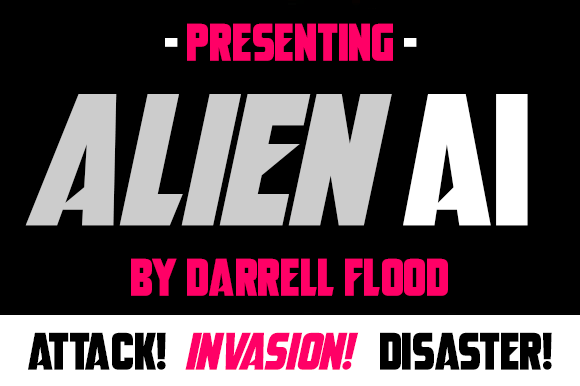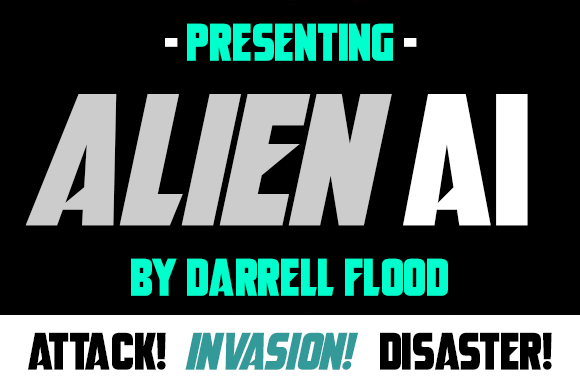
Alien AI Font Font
About the Alien AI Font Font
Step up your design game with Alien AI Font Font, a font that exudes confidence and style. Alien AI is a slick and modern display font in a subtle, sci-fi style. It is the perfect font to use in fiction titles, high-tech presentations, and many more. Add it now to your collection, and make your work stand out!
Alien AI Font excels in headlines, logos, and short, impactful text for science fiction, technology, or futuristic brands. Its sleek forms work well on posters, packaging, and even short website headers, adding a modern, slightly mysterious edge. Avoid using it for body text or lengthy paragraphs; its unique forms aren’t optimized for readability in extended use.
The font’s core personality is sophisticated and subtly futuristic. To enhance this, pair Alien AI Font with a clean sans-serif like Open Sans for body copy, or a geometric sans-serif like Futura for a more high-tech feel. For a contrasting yet harmonious look, consider pairing it with a classic serif like Garamond for a touch of traditional elegance.
This font’s modern energy and subtle sci-fi influence make it ideal for projects emphasizing innovation and technology. It’s not suitable for applications demanding high readability or a softer, more approachable feel.
Alien AI Font Font Usage Examples
Alien AI Font Font Example